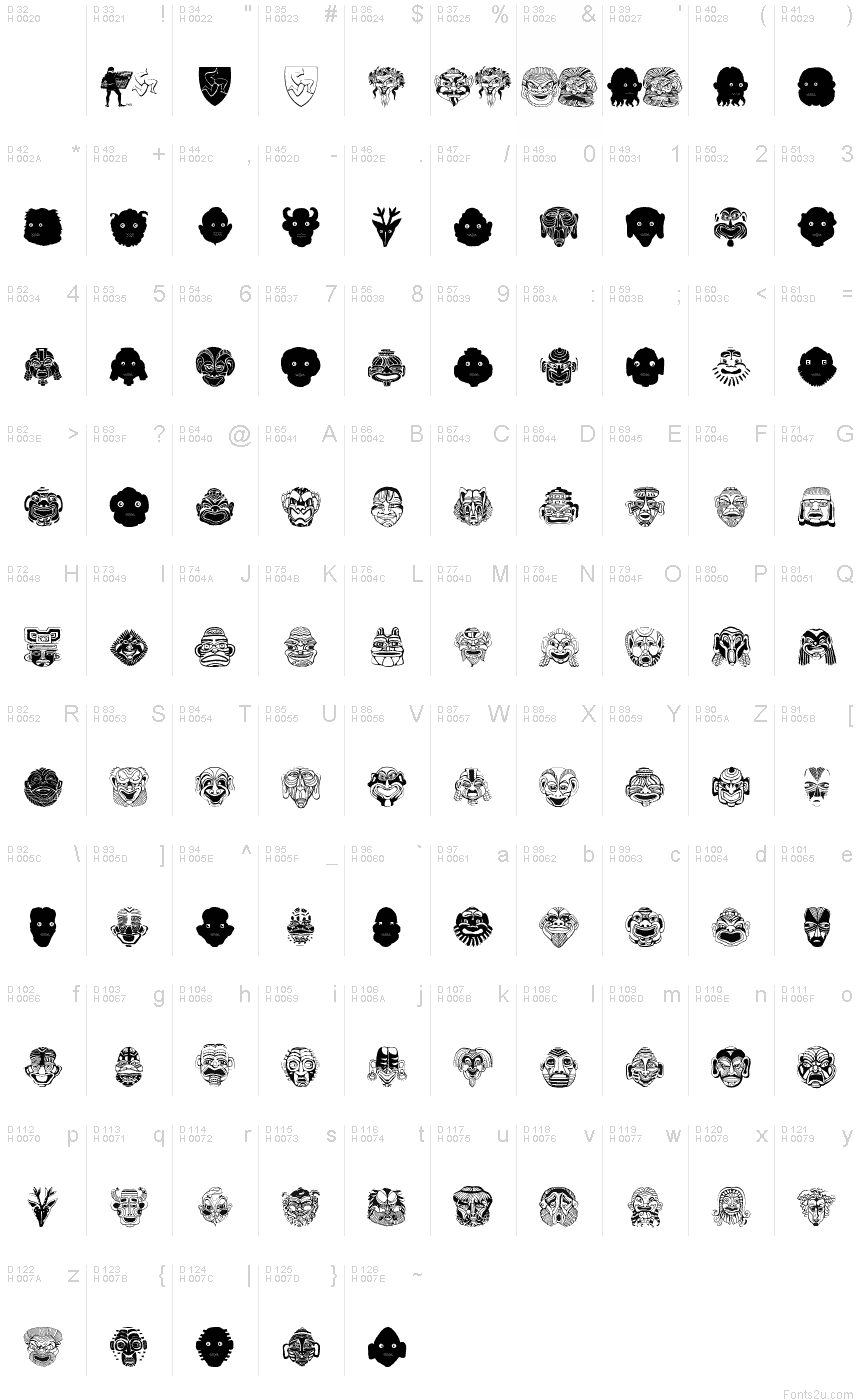
Maskenball 04, designed by Manfred Klein, is a free theatrical mask dingbat font built from expressive, hand-drawn faces. Curling lines and carved-looking patterns give every portrait a distinct silhouette.
Designers working in theater, festival culture, or folklore-inspired entertainment can use the collection for posters, event programs, merchandise, and game graphics, with expressions ranging from comic to fierce across a ready-made cast of illustrated personalities. In editorial design, the masks can function as section markers or spot illustrations for articles on performance, costume, ritual, or folk art, turning the font into a compact source of themed imagery and decorative dividers.